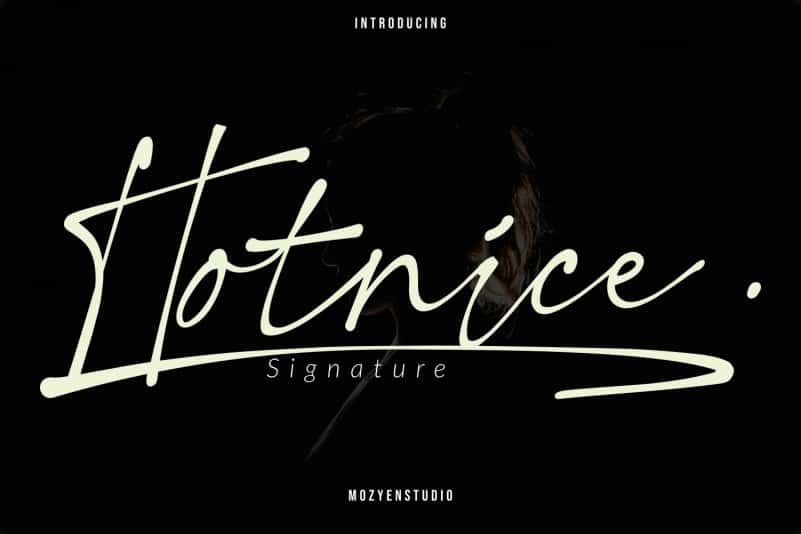
Hot Nice Font
Hot Nice Handwritten Font is a script font with elegant chic flair. Made from font designer named Mozyen Studio. “Hotnice” can accompany your design so that it looks attractive and extraordinary. “Hotnice” Signature Font, you can use in various designs such as weddings, beautiful words, t-shirt designs, business cards, company logos and promotions.